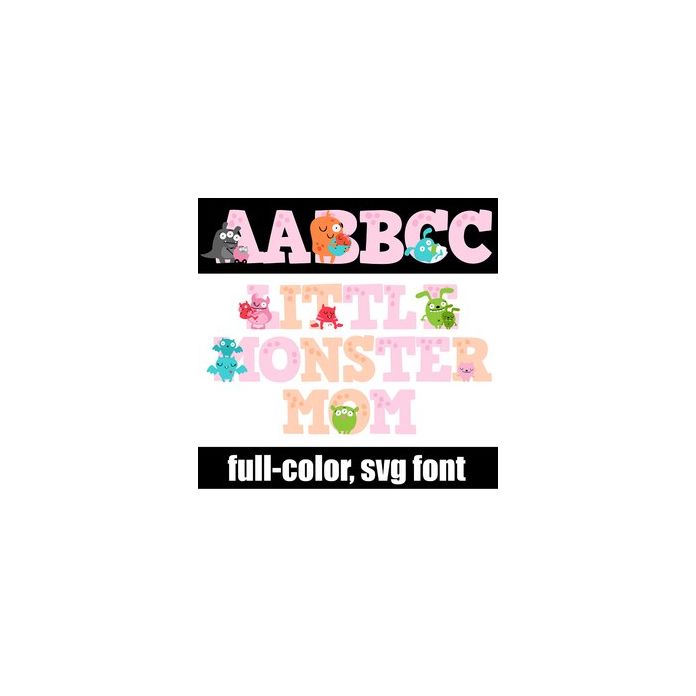
This full-color font features an uppercase with monster moms and babies. The lowercase is without monsters. There is an alt case with additional colors that you can access through your system or Silhouette's glyph map.